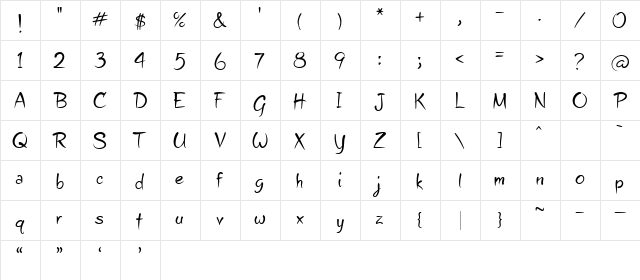
CK Boutique Regular
Design Context for CK Boutique Typeface
CK Boutique is a composed and adaptable typeface that performs quietly and consistently across a wide range of design contexts.